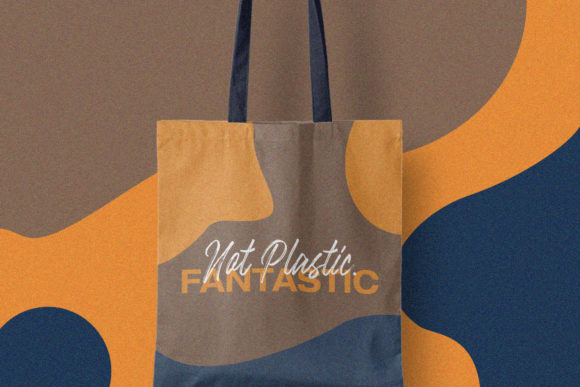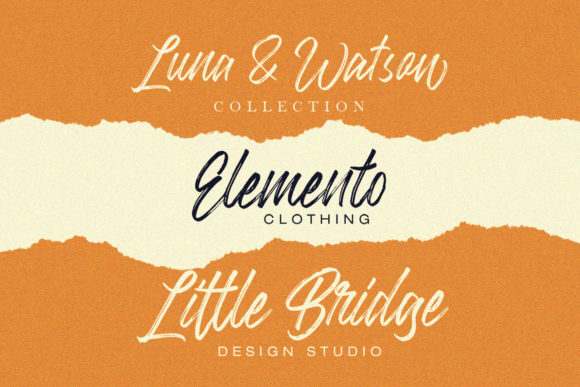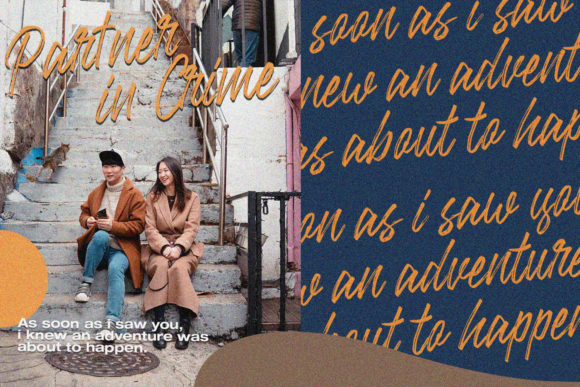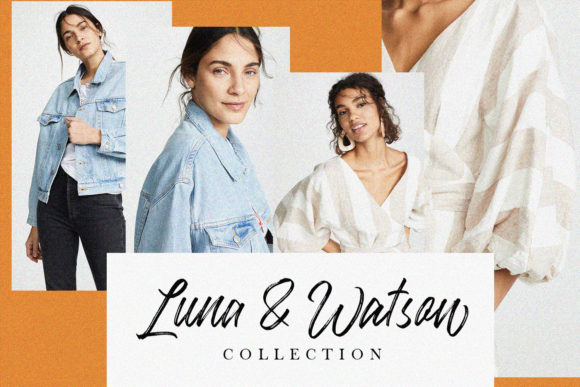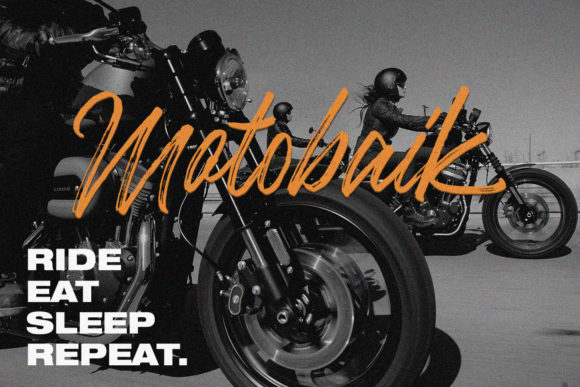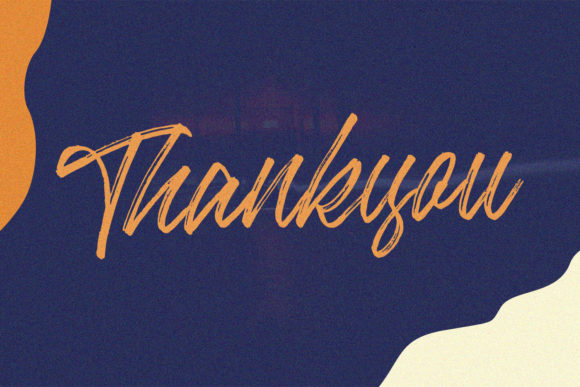
Lescyster Font
About Lescyster Font
Lescyster merges classic calligraphy and modern influences into a gorgeous script. Fall in love with its raw, authentic charm!